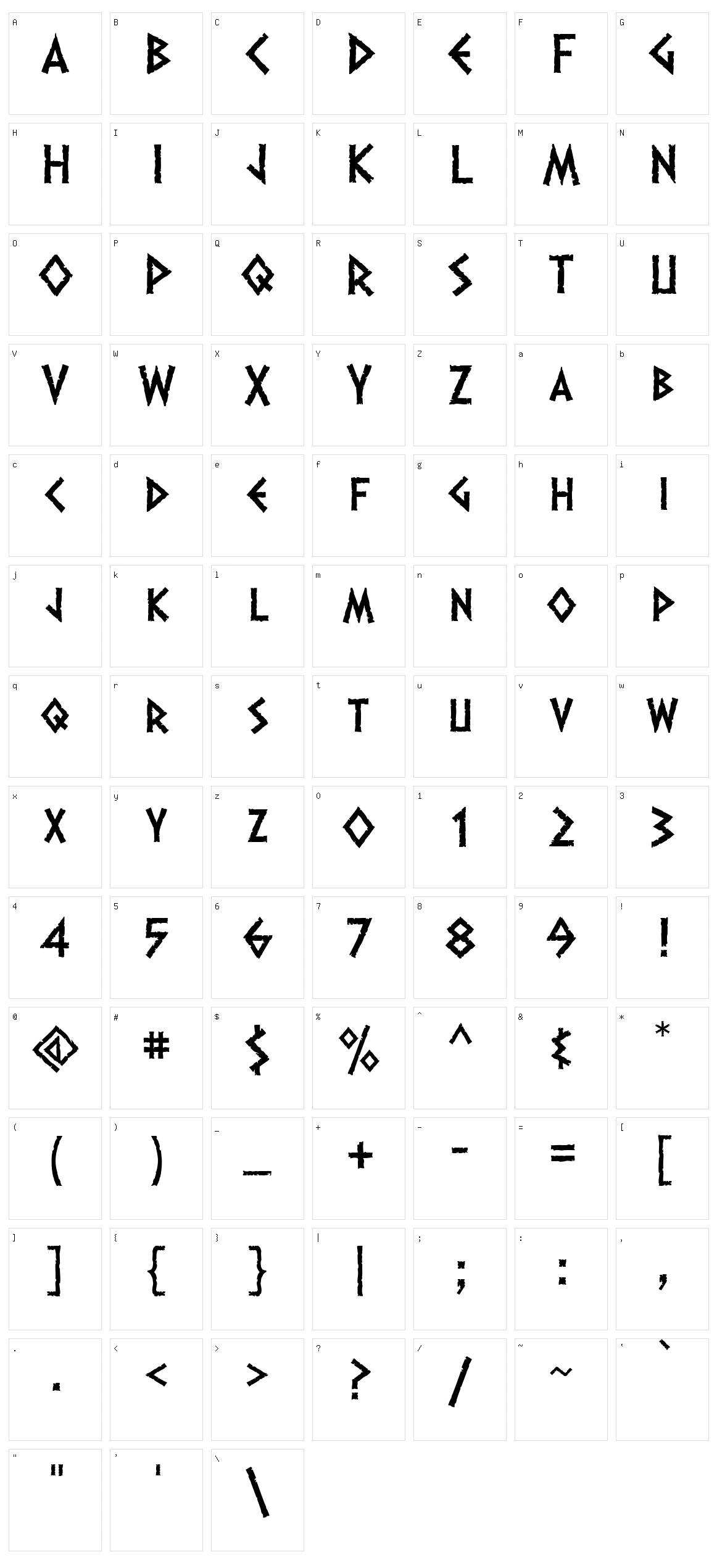
Dalek is a distressed, small caps typeface based on the lettering used in the Dalek Book of 1964 and in the Daleks strip in TV21 comic. The fonts have overtones of Greek, Phoenician and Runic alphabets.